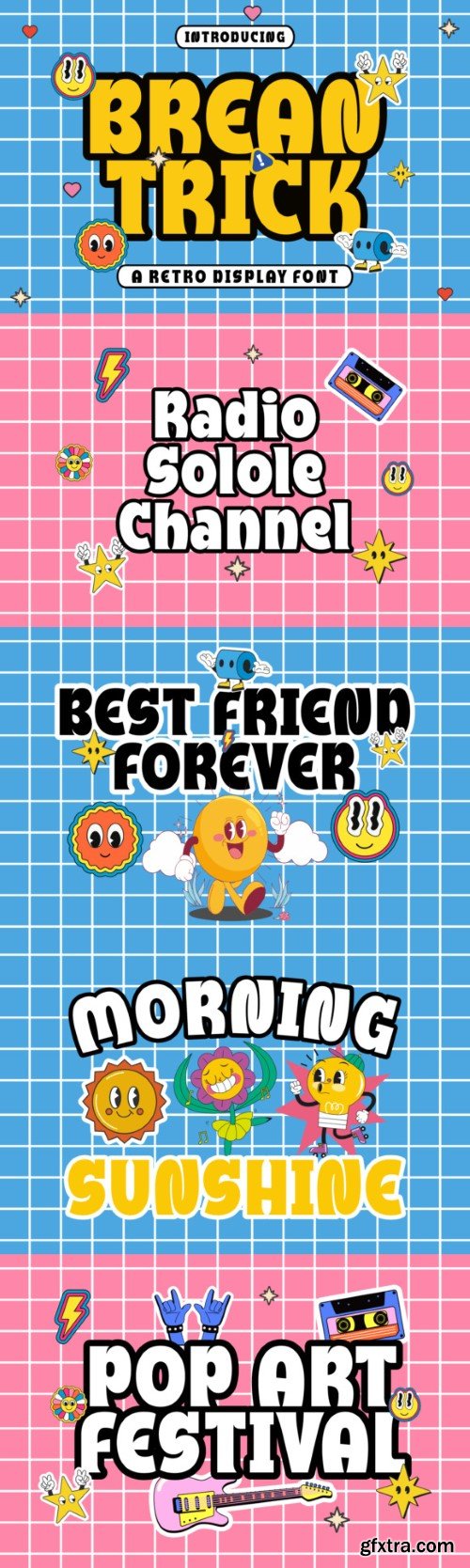
Brean Trick is a cute and friendly display font. Thick and playful, this retro-style font will help you create outstanding typography designs. Explore its endless possibilities and add it to your fonts library now!